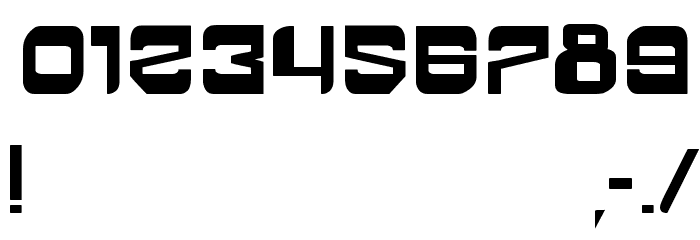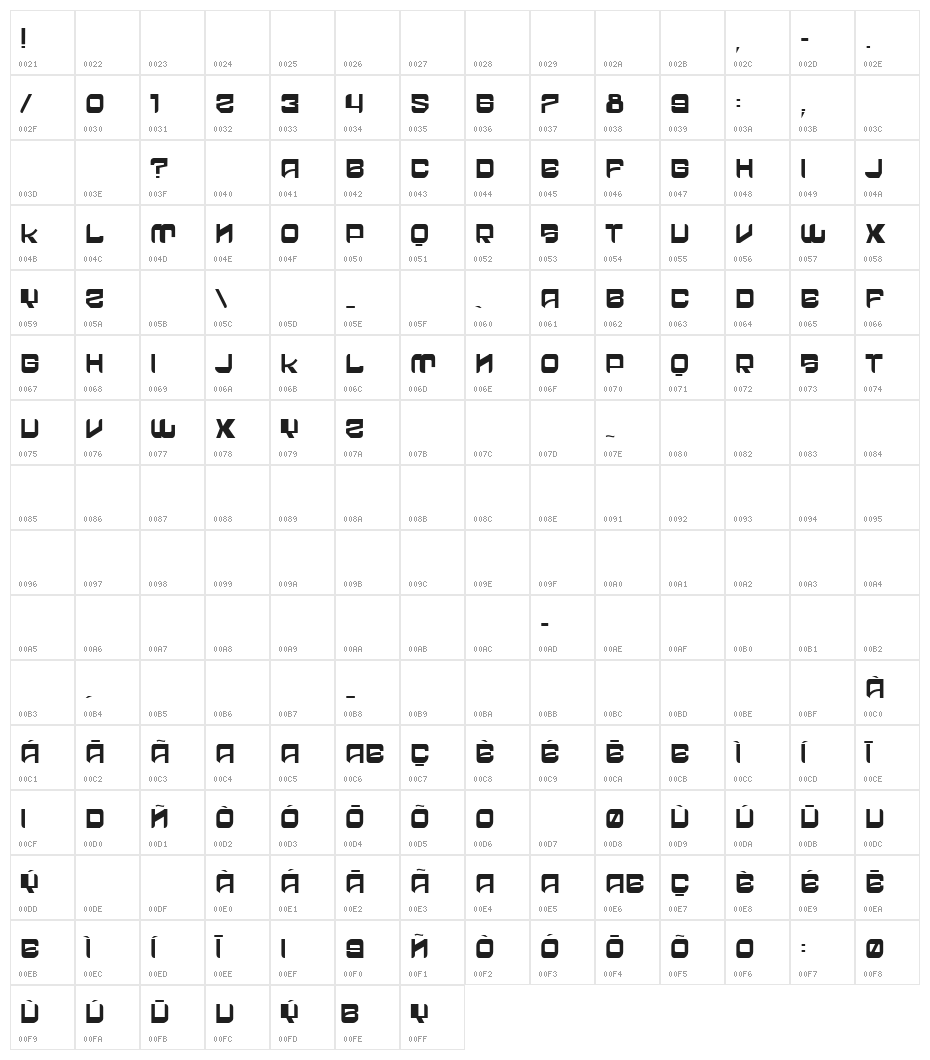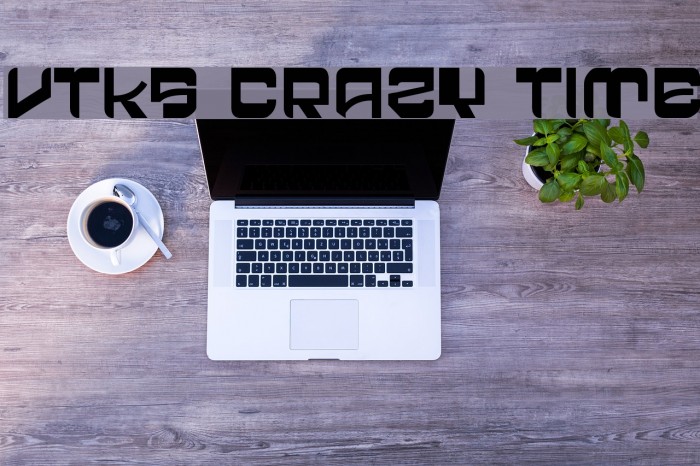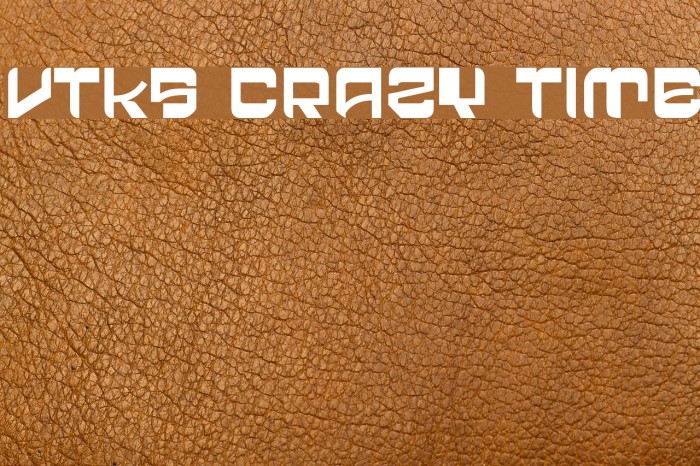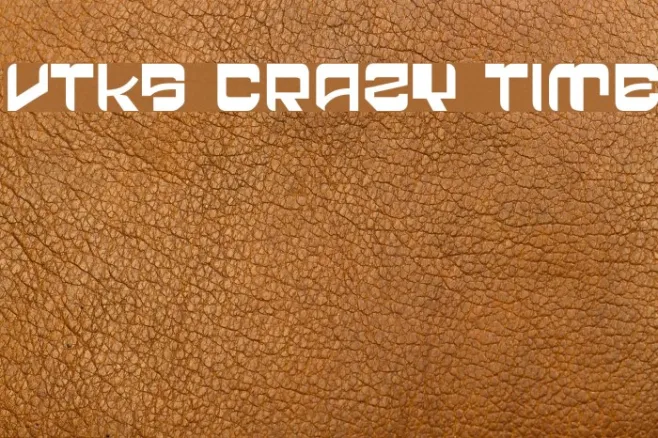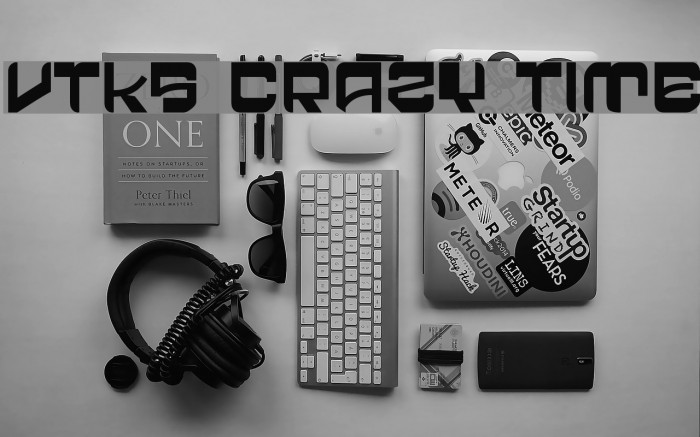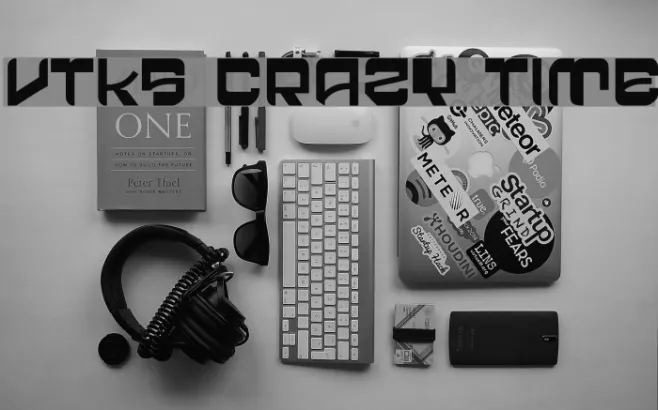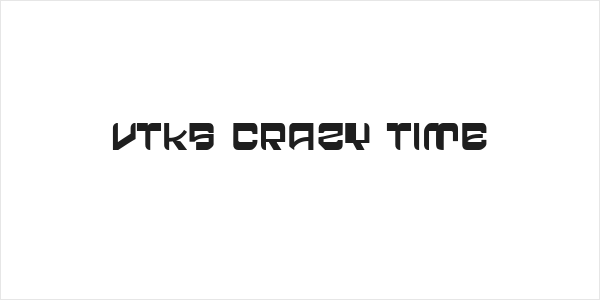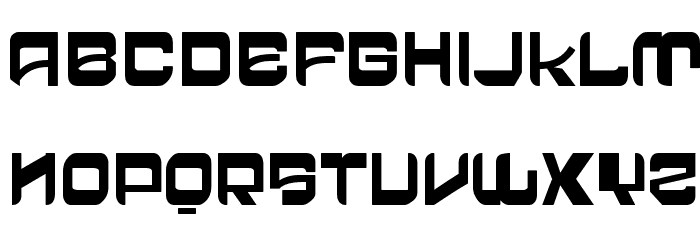
vtks crazy time Font
vtks crazy time Description
This font features a bold and futuristic design with sharp angles and geometric shapes. The uppercase letters are distinct with a blocky appearance, while the lowercase letters maintain a consistent style. The numbers are equally bold, with a uniform height that matches the uppercase letters. Special characters are designed to complement the overall aesthetic, adding a unique flair. The font's strong lines and modern look make it suitable for attention-grabbing designs.
| Proposed Projects | Ideal for sci-fi themed posters, video game graphics, and modern branding projects. |